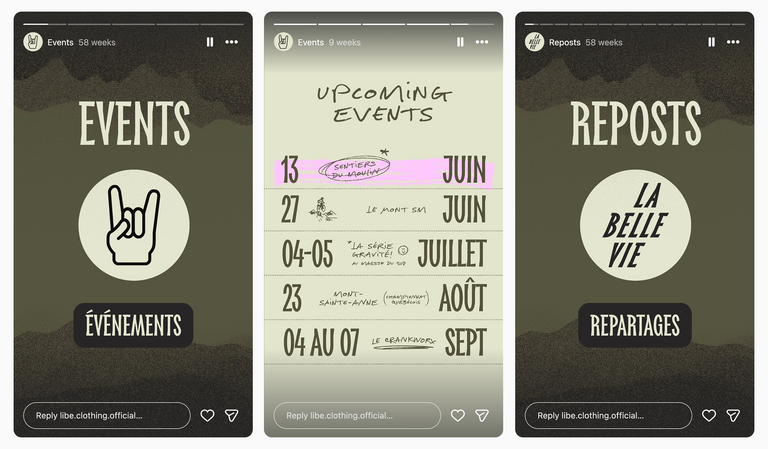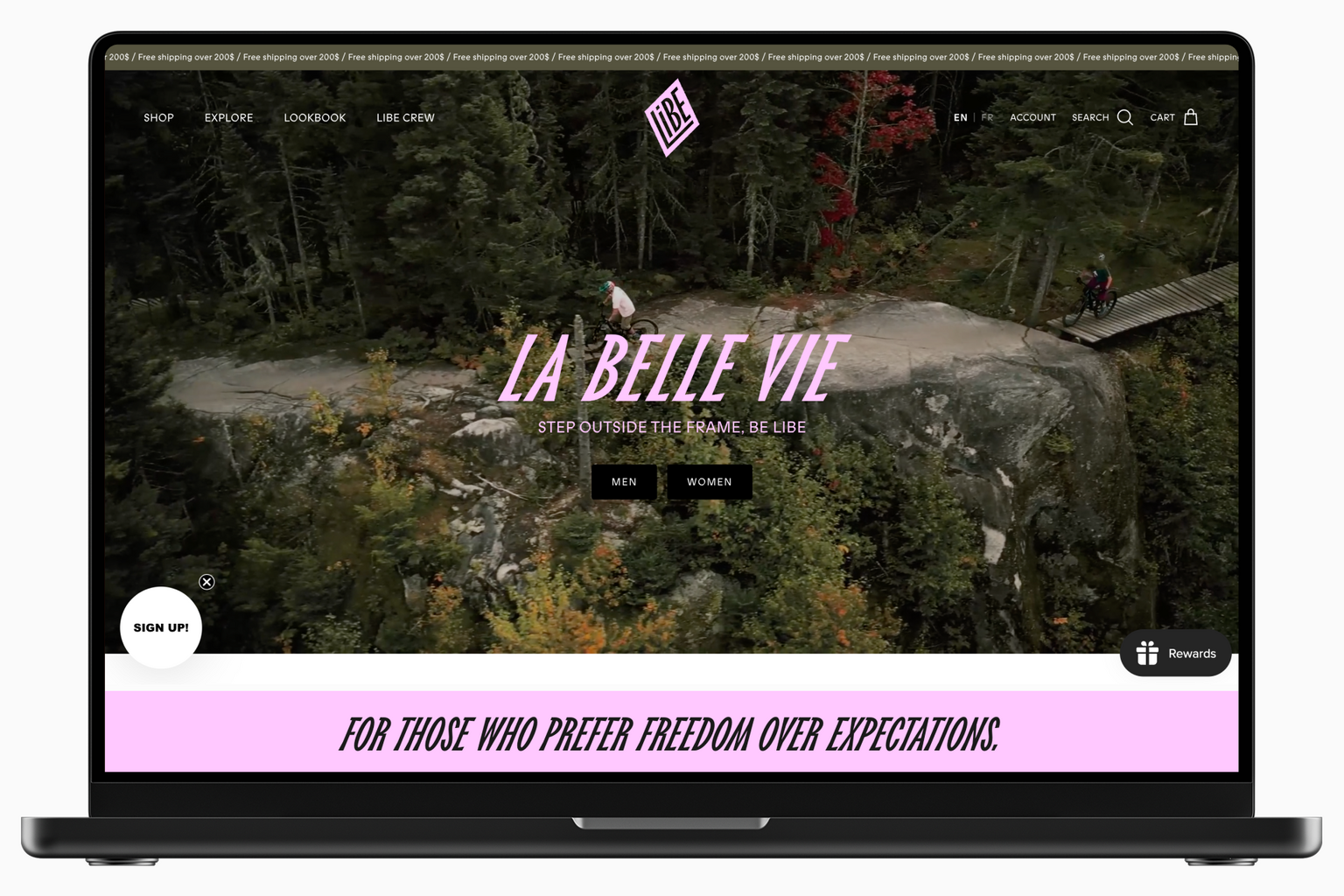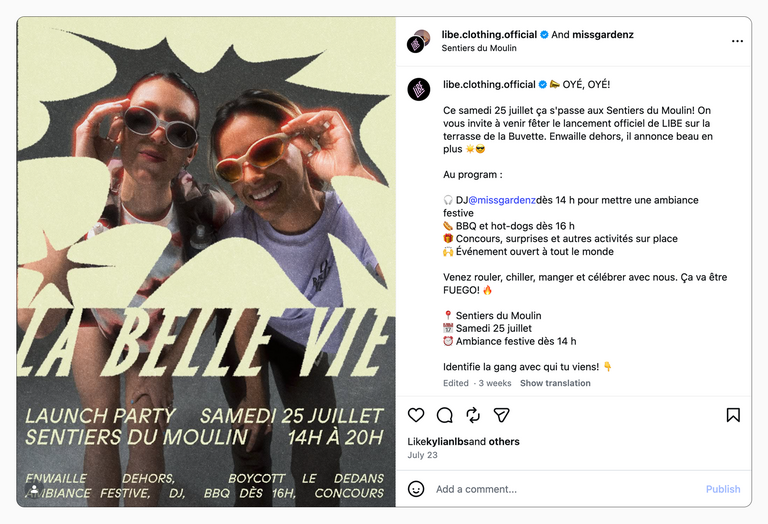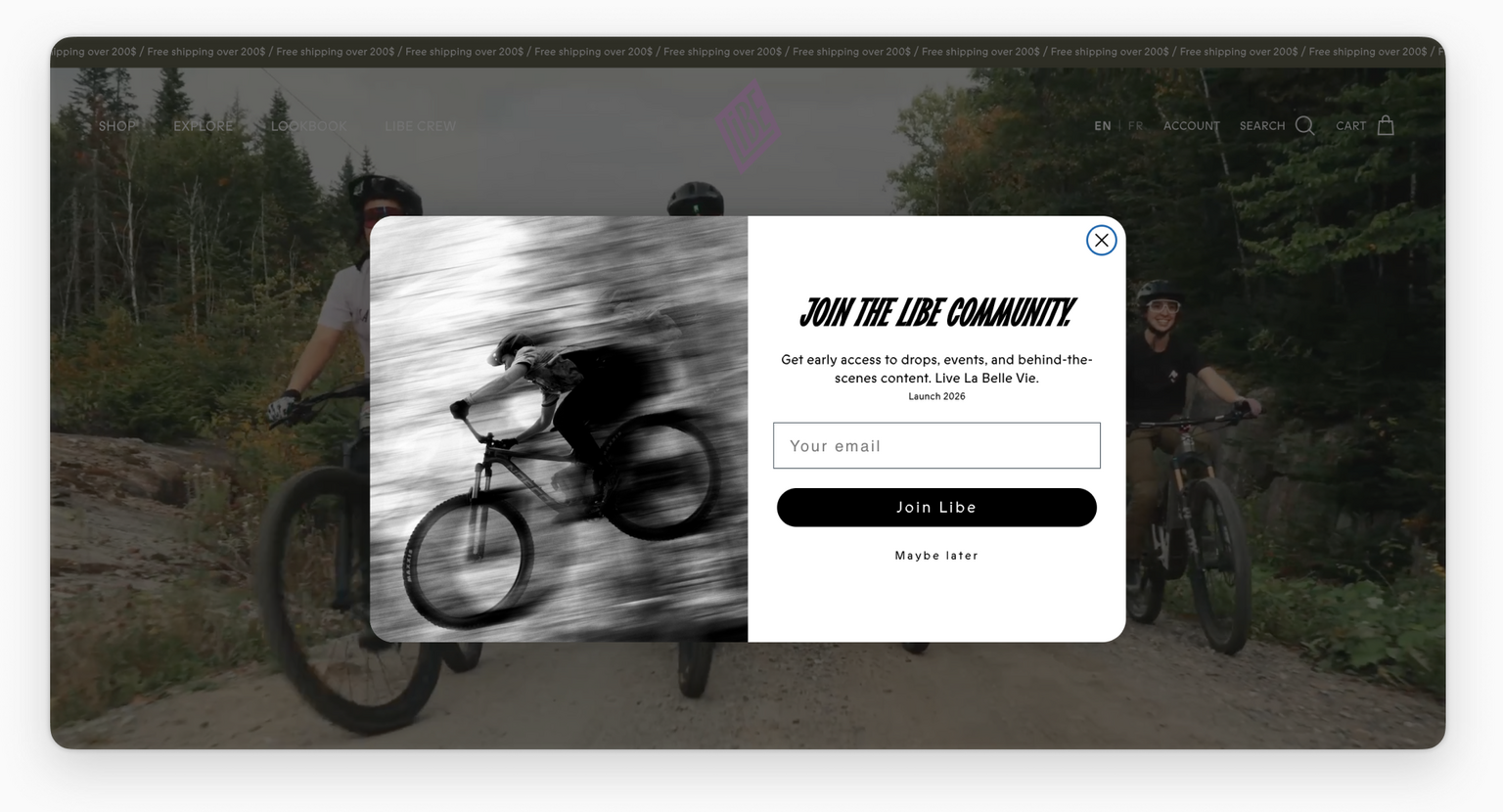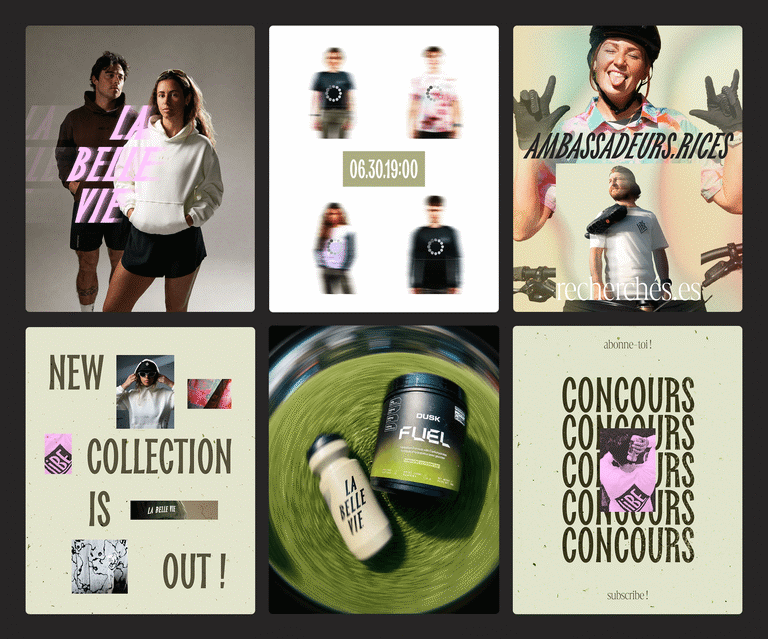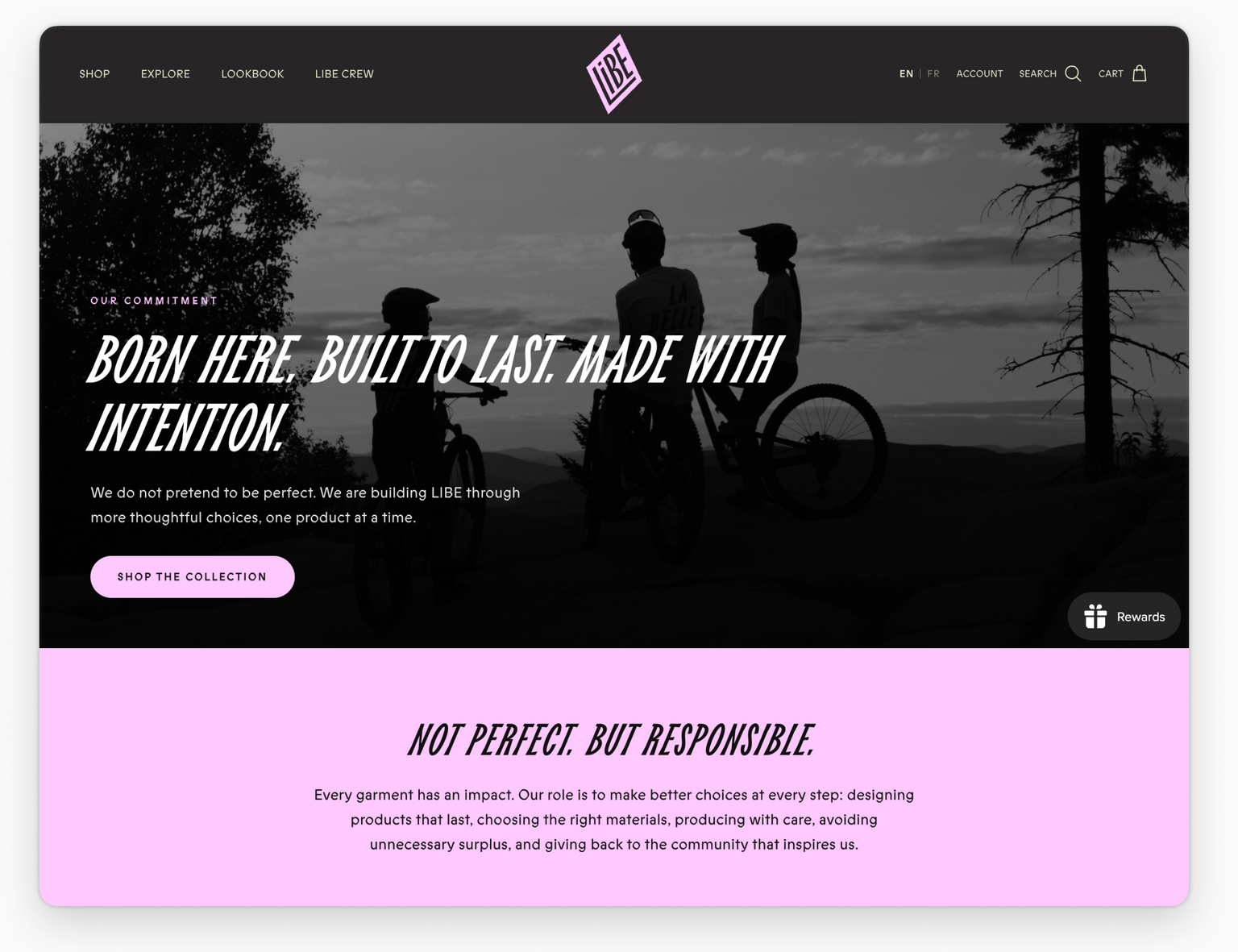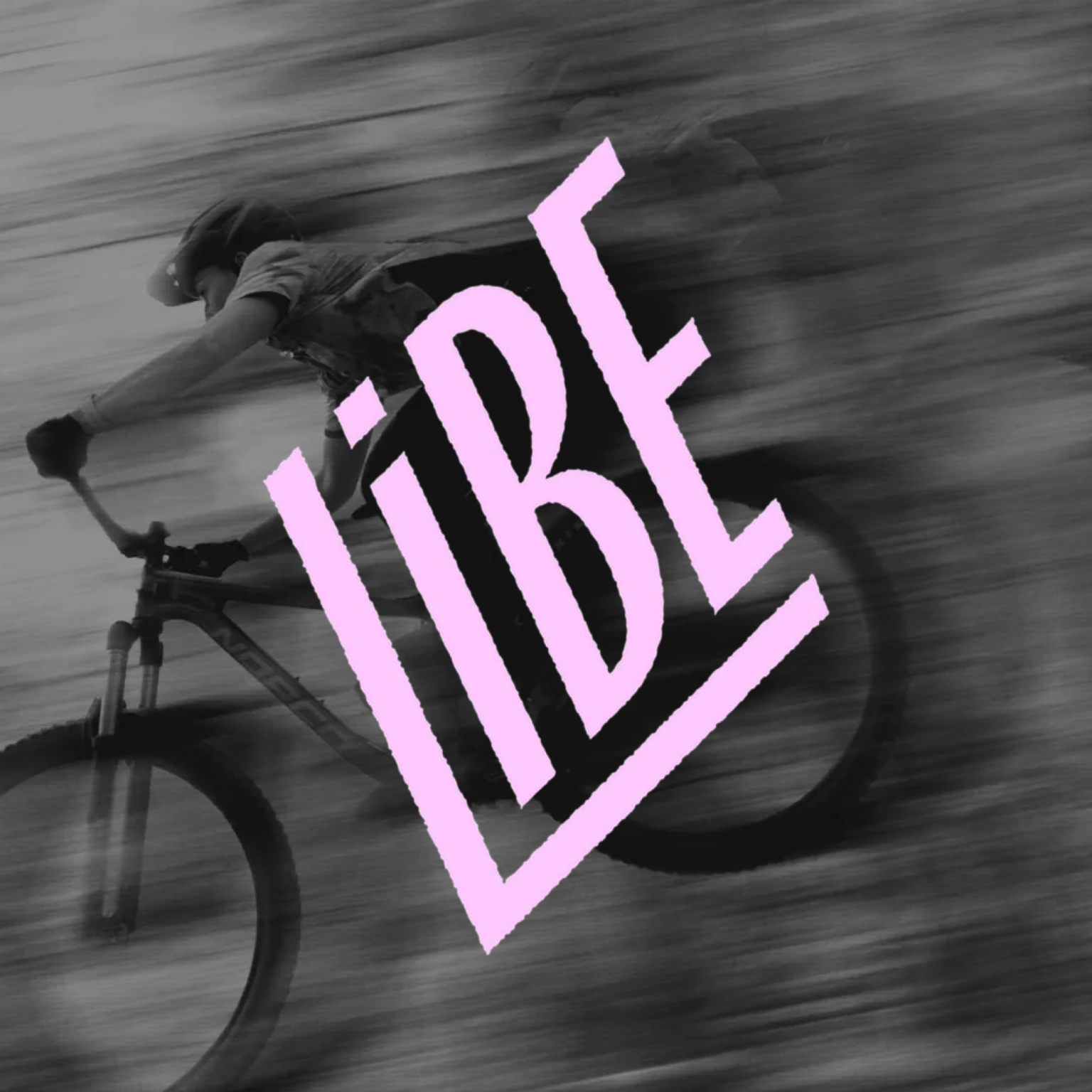
TT Biersal is part of the brand identity for LIBE, a Canadian activewear brand.
LIBE creates clothing for cycling, running, and other outdoor activities, combining the functionality of sports gear with streetwear aesthetics. TT Biersal organically integrated into the free and energetic identity, adding a dynamic feel to the design.